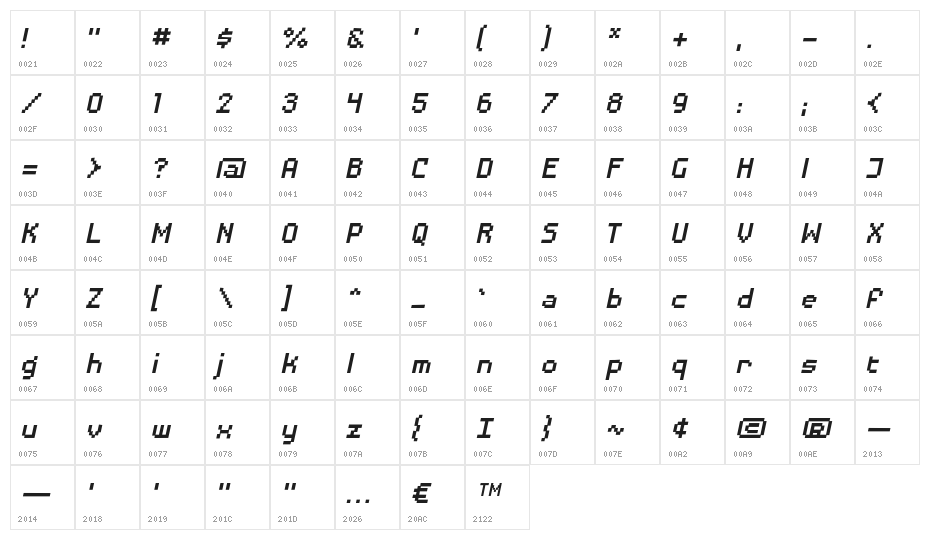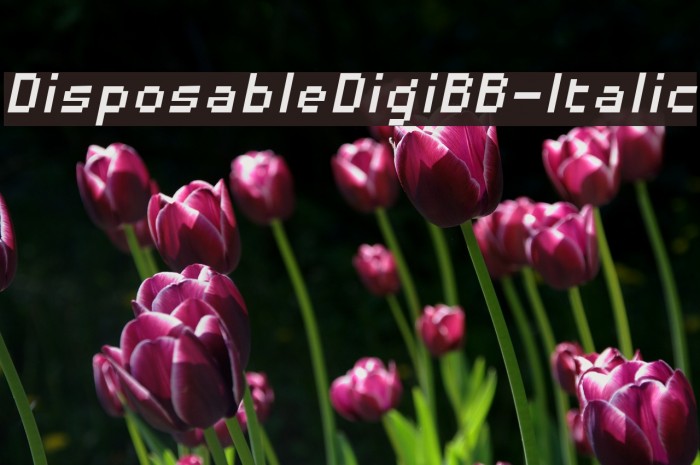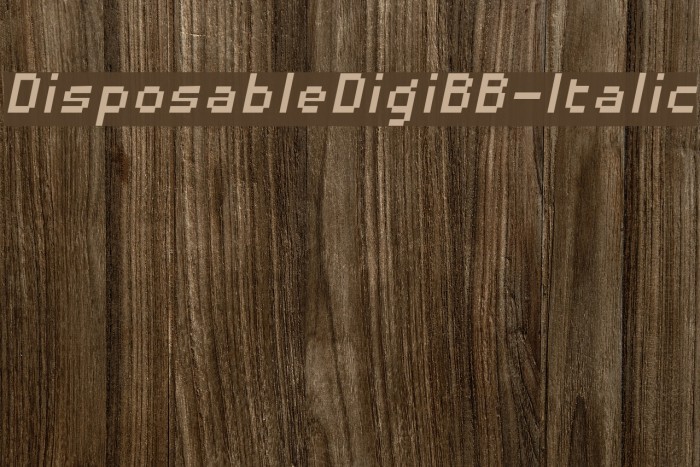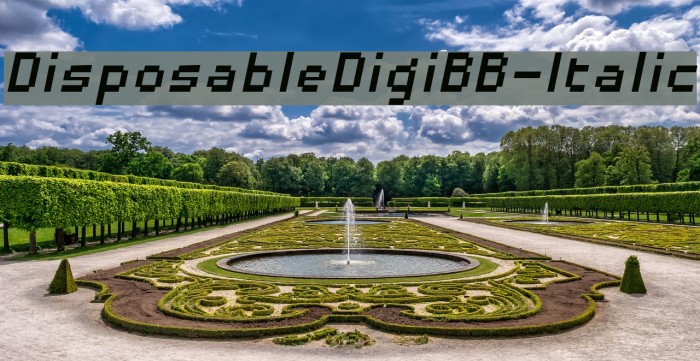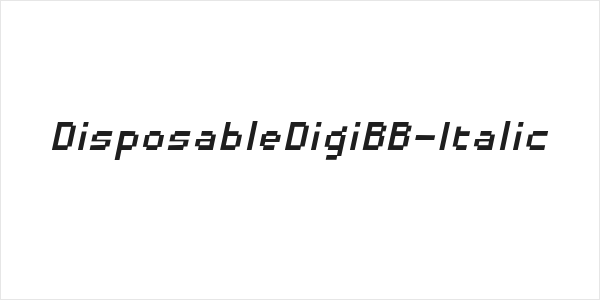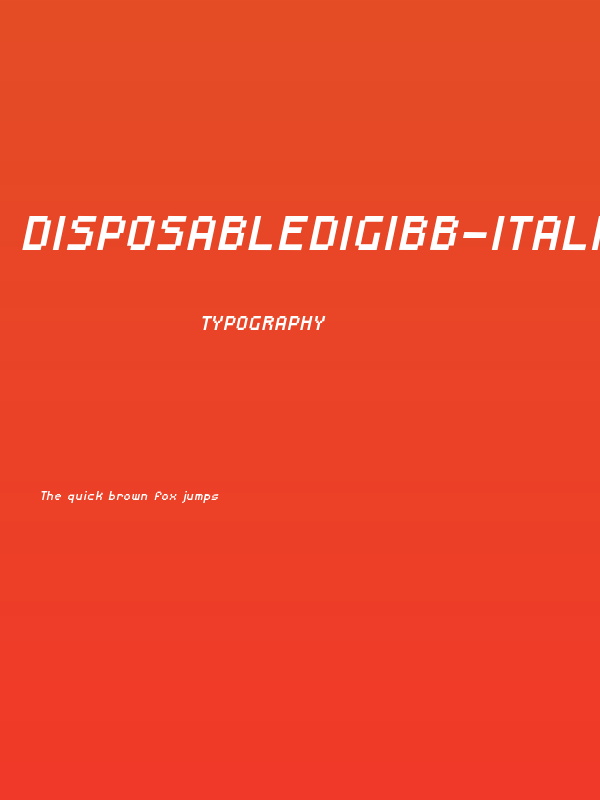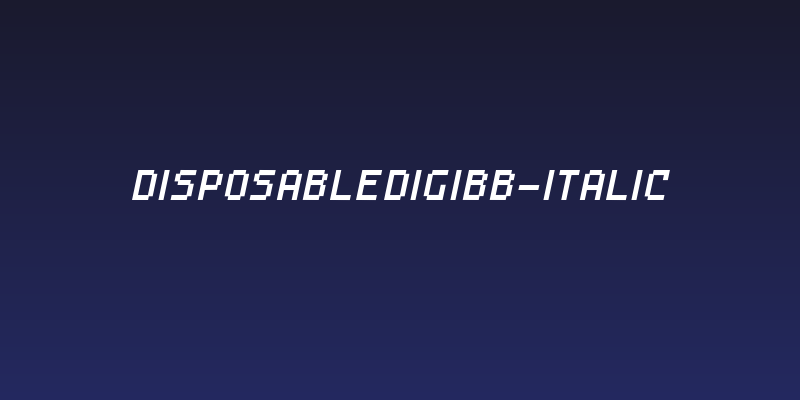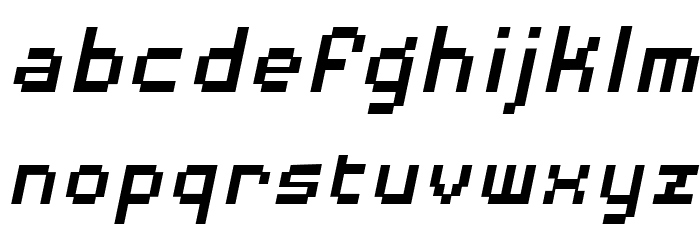
DisposableDigiBB-Italic Font
DisposableDigiBB-Italic Description
This font features a distinct pixelated design reminiscent of early digital displays and retro video games. Each character is constructed with sharp, block-like edges, giving it a geometric and angular appearance. The italic style adds a dynamic slant to the characters, enhancing the sense of movement and modernity. The uppercase and lowercase letters maintain a consistent height, contributing to a uniform and cohesive look. Numerals and special characters are crafted with the same pixelated precision, ensuring readability and stylistic harmony across all text elements.
| Use Case | Headlines, Logos, Digital Art |
| Proposed Projects | Ideal for projects that require a retro or digital theme, such as video game graphics, tech-related branding, or nostalgic digital art. |